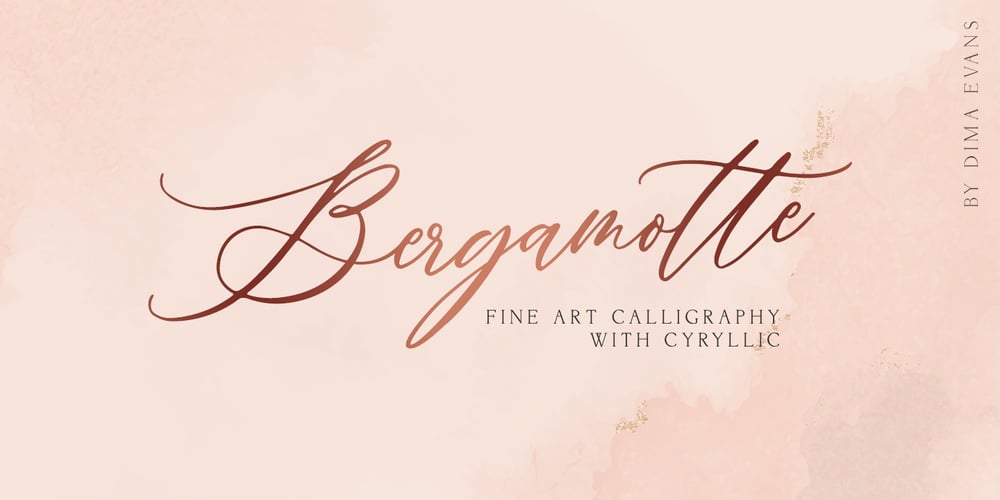
Bergamotte Font Family was designed by Dmitrii Chirkov and published by Supfonts. Bergamotte contains 1 styles and family package options. Bergamotte is a modern calligraphic font with exquisite accents. It is perfect for branding, wedding invitations and invitation cards and many moreFont includes a full set of gorgeous uppercase and lowercase letters, numbers, a large selection of punctuation marks and ligatures, and Cyrillic support.Includes: Latin languages support Cyrillic languages support Uppercase and lowercase Numbers and punctuation Ligatures Check out my blog: https://www.instagram.com/di.zigner/ pinterest.com/dmitriychirkov7 Enjoy